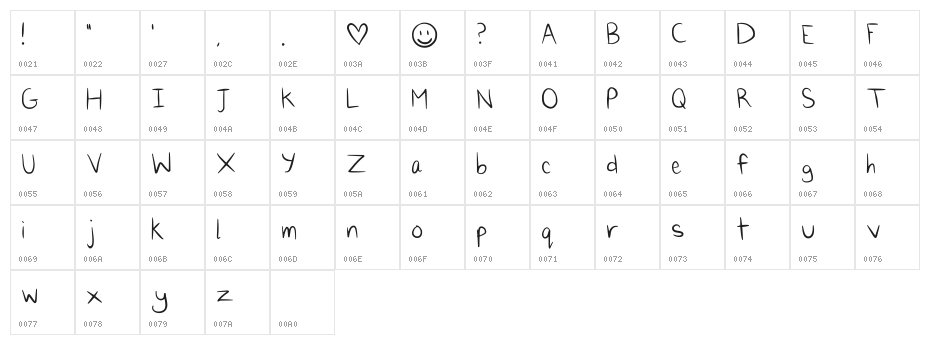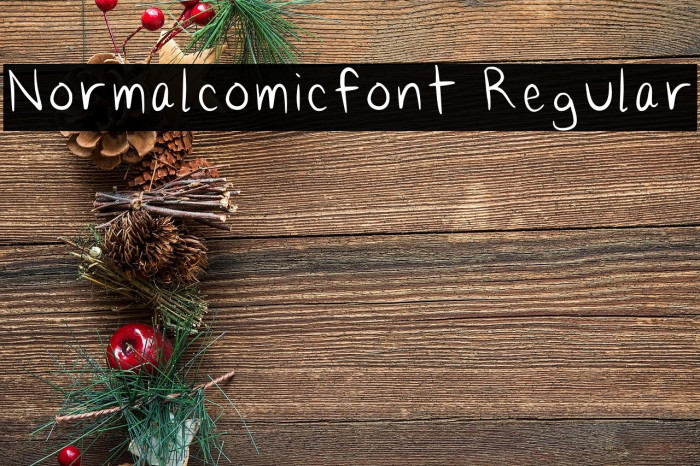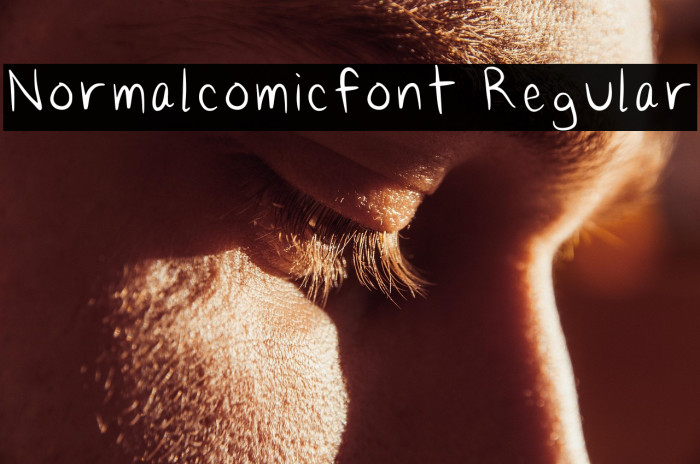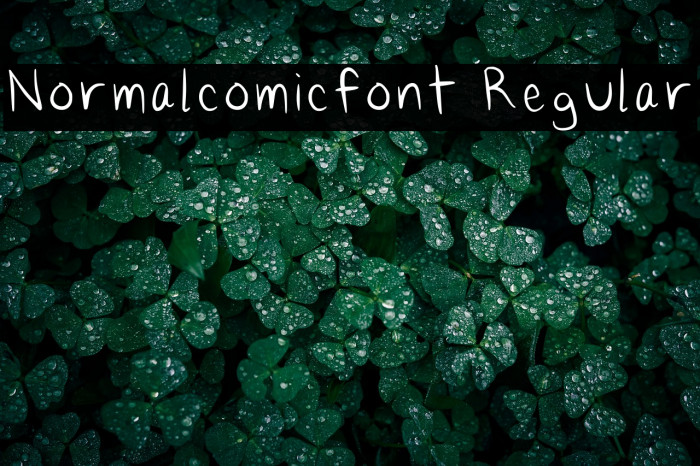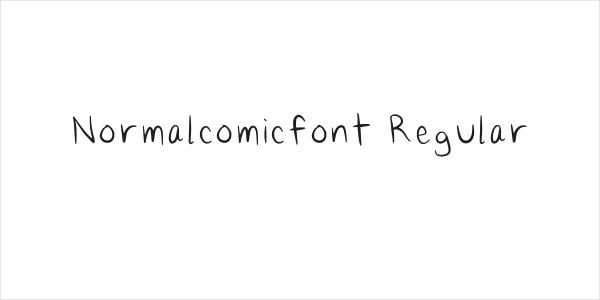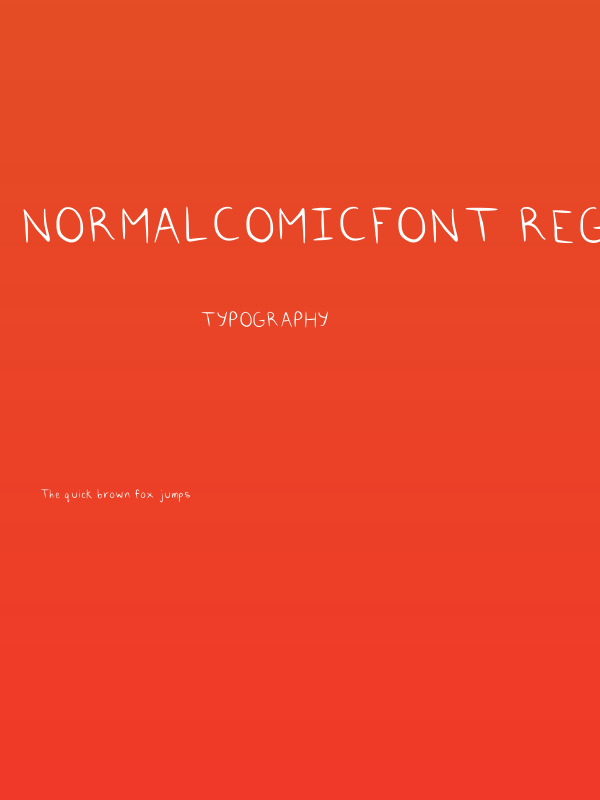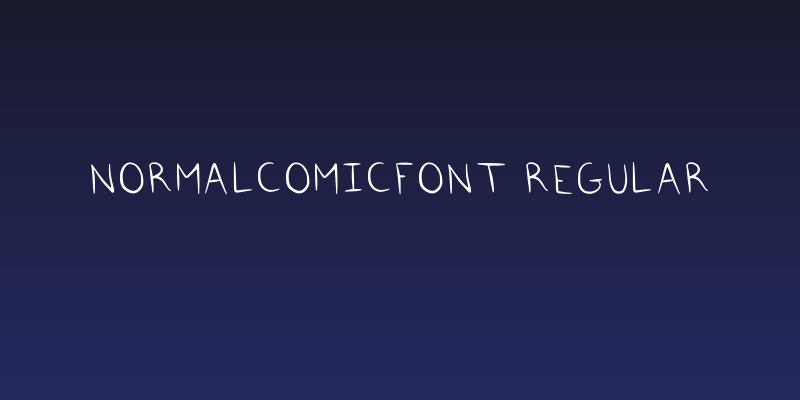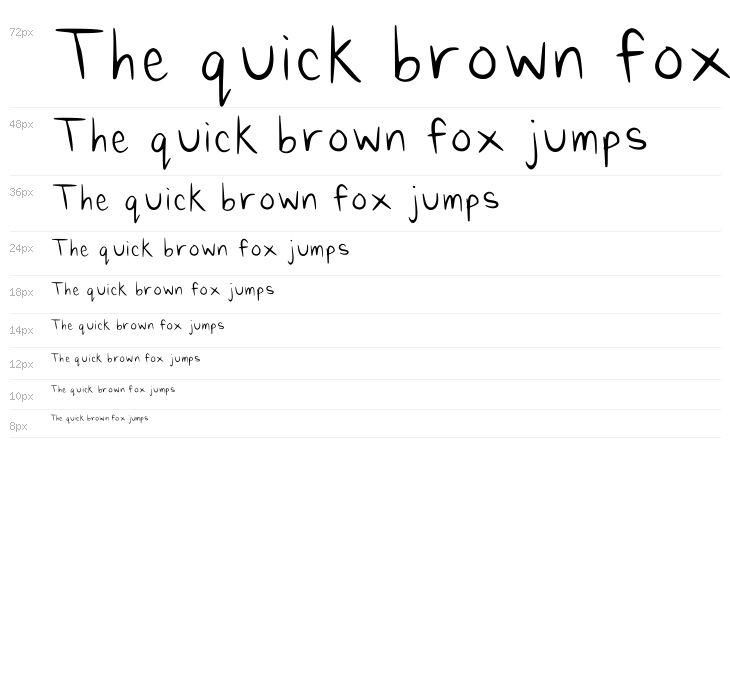
Normalcomicfont Regular Font
Normalcomicfont Regular Description
This font exudes a playful and informal vibe, reminiscent of handwritten text often found in comic books. The characters are slightly irregular, adding a whimsical touch that enhances its casual appearance. The strokes are consistent in thickness, providing a uniform look across all letters. The uppercase and lowercase letters maintain a friendly and approachable style, making it suitable for lighthearted and creative projects. The spacing between characters is balanced, ensuring readability while maintaining its fun aesthetic.
| Overall Style | Casual |
| Use Case | Headlines, Informal text, Comics |
| Proposed Projects | Ideal for comic strips, children's books, casual invitations, and playful branding. |